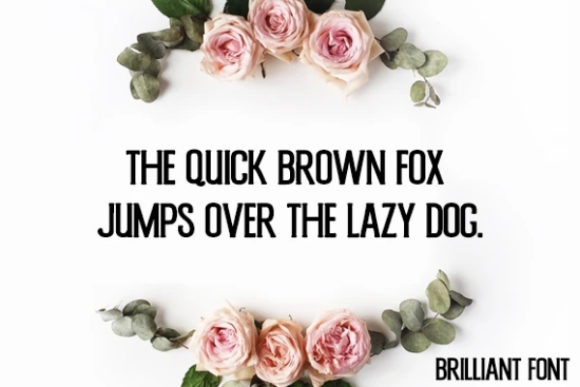
Unlock the Magic of Beautiful Typography
You know that feeling when you stumble upon the perfect font, and it sparks an entire creative project? It’s like a symphony of ideas, and you can’t wait to bring them to life. For me, that moment happened when I discovered the Brilliant Font.
This lovely display font is a designer’s dream come true. Its authentic feel and elegant lines make it perfect for crafting gorgeous wedding invitations, stunning stationary art, eye-catching social media posts, and adorable greeting cards. The Brilliant Font is a versatile tool that will elevate your designs and leave a lasting impression.
Whether you’re a seasoned designer or a creative enthusiast, the Brilliant Font is an invaluable addition to your toolkit. Its unique charm and versatility make it a valuable asset for anyone looking to add a touch of sophistication to their projects.
- Unique Characteristics: Brilliant Font features a unique blend of modern and elegant design elements, including intricate details and subtle texture, making it perfect for luxury branding and high-end designs.
Brilliant Font Review
Overall, I’m quite impressed with the Brilliant Font. It has a lot of great qualities that make it a solid choice for designers. ✨
- High legibility: The font is designed to be easy to read, even at small sizes, making it perfect for body text.
- Wide range of weights: Brilliant Font comes in a variety of weights, from light to bold, allowing for a lot of flexibility in design.
- Clean lines: The font’s clean lines and minimal ornamentation give it a modern feel that works well in both digital and print designs.
- Limited language support: The font only supports a limited range of languages, which may be a problem for designers working on international projects.
- No italics: Unfortunately, Brilliant Font doesn’t have an italic version, which may limit its use in certain design situations.
Overall, I’d say that Brilliant Font is a great choice for designers who need a clean, modern font with good legibility. While it has some limitations, its strengths make it a solid addition to any design toolbox.
For best results, use Brilliant Font for headings and titles, as it’s designed to make a statement. Experiment with different font sizes and colors to create a visually appealing design.
Brilliant Font works particularly well for creating custom logos, graphics, and illustrations. Use it to add a touch of sophistication and elegance to your designs.
Brilliant Font is ideal for creating presentations, reports, and documents that require a professional and modern look. Use it to add a touch of sophistication and style to your content.
Brilliant Font is suitable for a wide range of applications, including:
– Creating custom logos and branding materials
– Designing presentations, reports, and documents
– Developing graphics and illustrations
– Adding a touch of sophistication and elegance to web designs